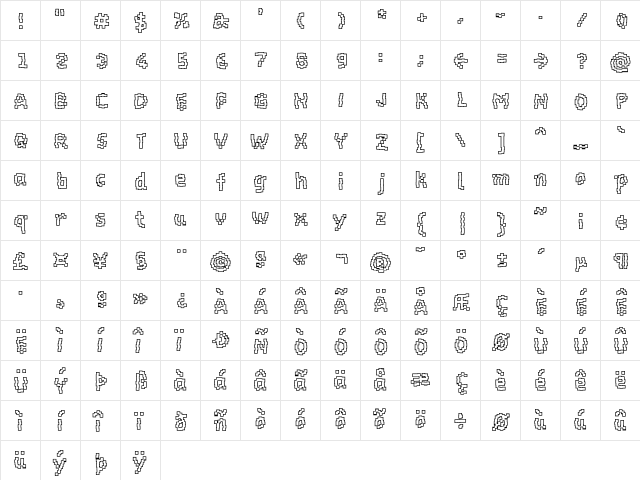
Baukasten Five
Design Context for Baukasten Typeface
Baukasten is a composed and adaptable typeface that performs quietly and consistently across a wide range of design contexts.